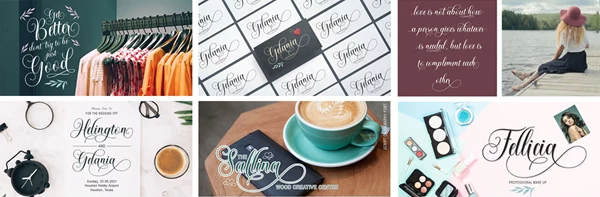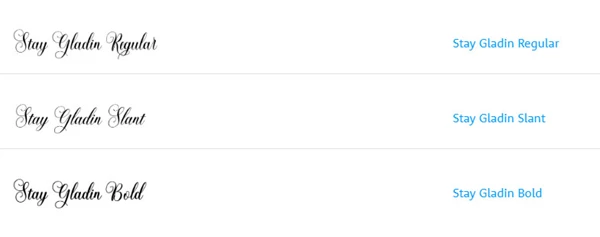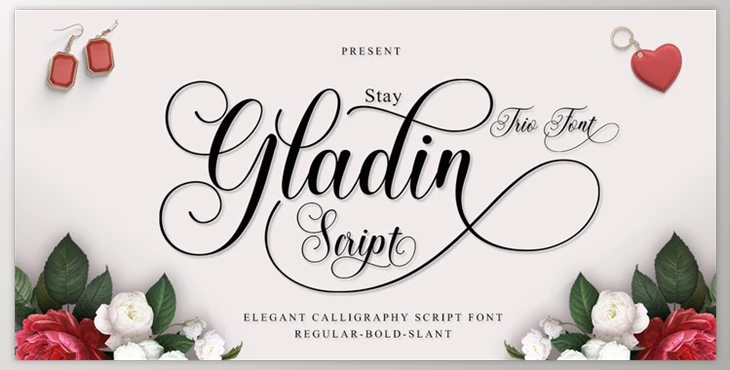
Stay Gladin Font - MyFonts:
Stay Gladin Script Font Trio is an innovative contemporary script font that has an unorthodox baseline. Elegant and feminine. Stay Gladin Script looks gorgeous on wedding invitations, thank-you cards and quotes, greeting cards, and business cards. Logos, corporate designs, and much more. Ideal for use with watercolor or ink. It includes start and ending letters, alternative spellings, and support for various languages.